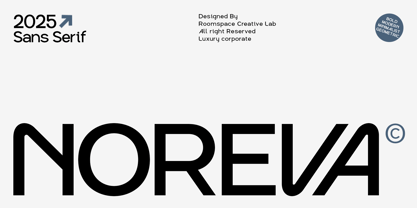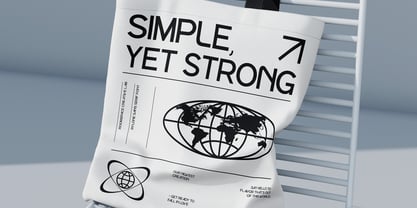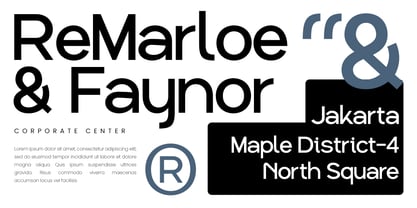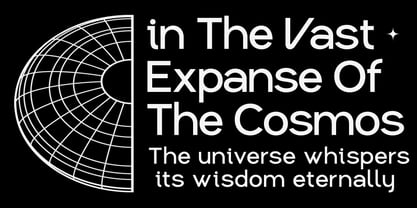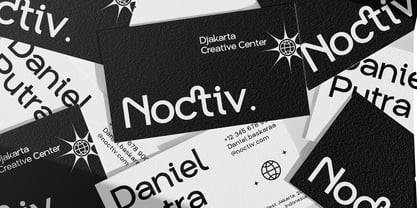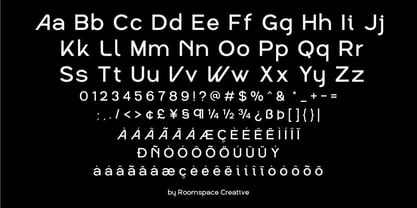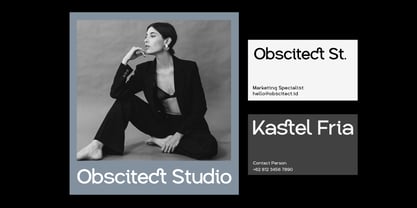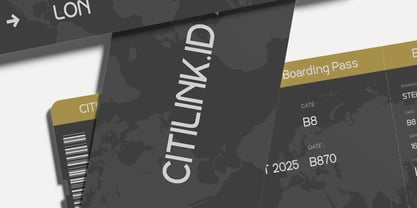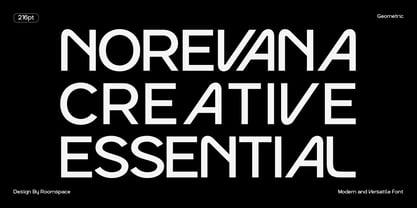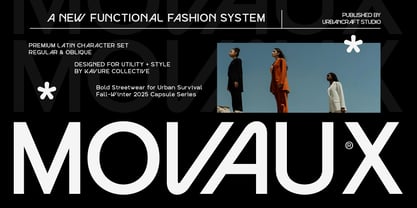
Noreva
by Jafar07
The Noreva Font Family was designed by Bakhrudin Ja'far and published by Jafar07. Noreva contains 2 styles and family package options.
Noreva a clean, confident sans serif font built for everyday design. With bold curves and a smart geometric look, it brings clarity and modern appeal to everything from branding to packaging Whether you’re designing a tech startup logo, curating Instagram content, or building a minimalist website, Noreva works like a charm. It’s simple, flexible, and just the right amount of bold. Easy to use. Always looks sharp.
About Jafar07
A little from my personal design & background: My name is Bakhrudin Ja'far, I live in Malang, Indonesia. I am currently completing my degree in visual communication design and I have worked as a lettering artist and logo designer for many years. I finally started my studio called roocspace creative lab (jafar07) Studio a few months ago and with my team made my letters into typography.